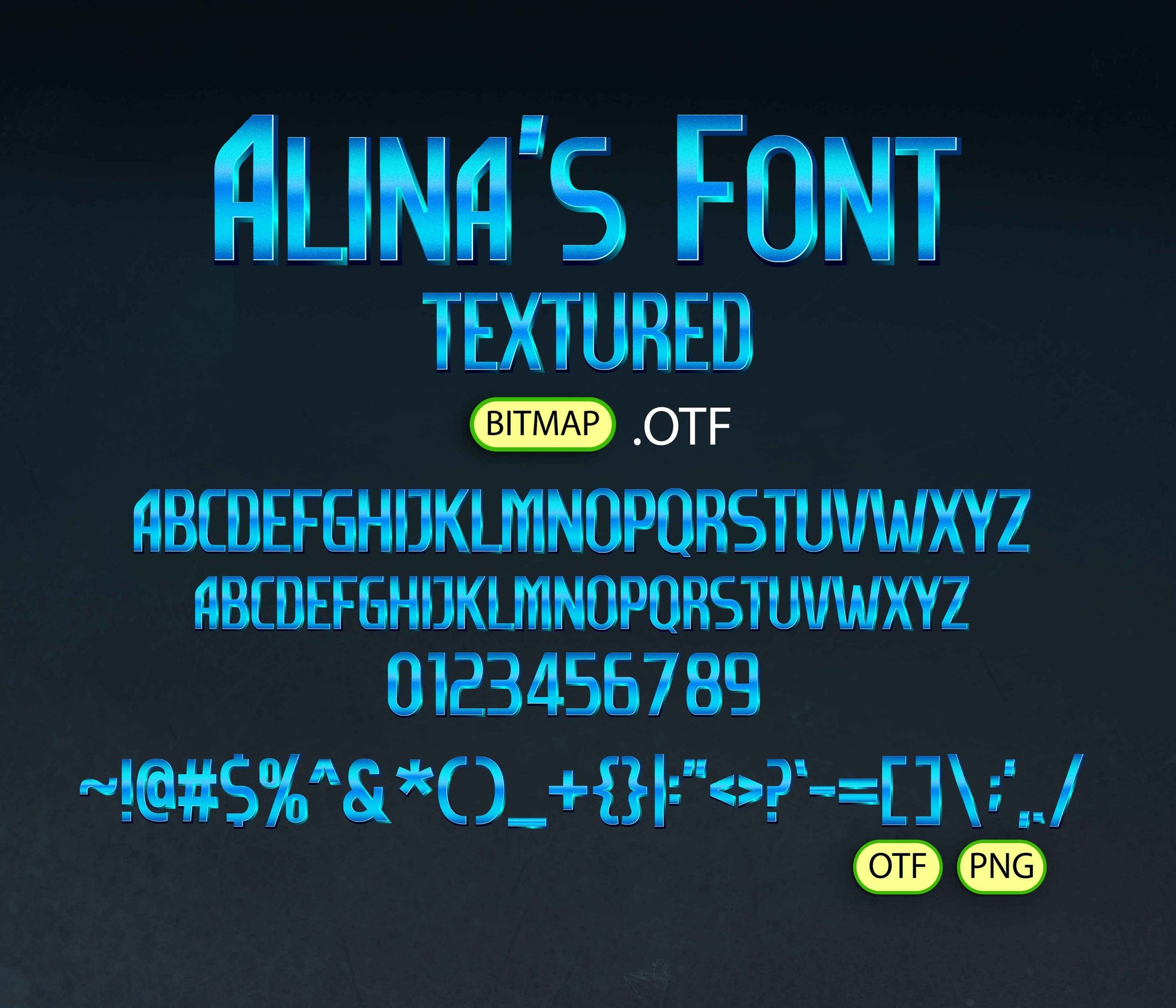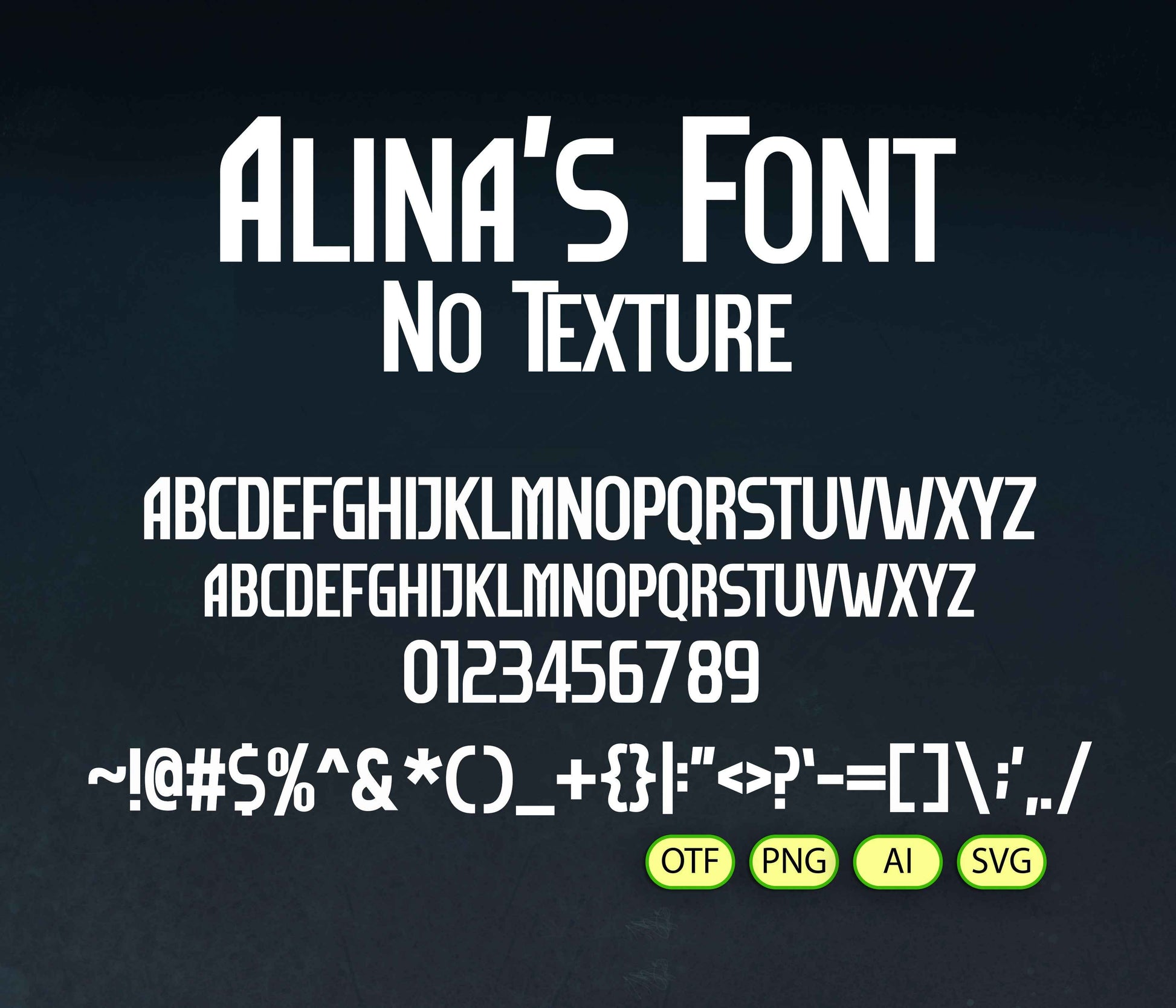
Quantum Hero Font Textured
Step into the adrenaline-filled universe of size-altering superhero exploits with our Quantum Realm Font: Quantum Hero Textured Font. Crafted to echo the unique vibrancy of action and wit found in engrossing narratives of a size-changing hero, this font empowers your creations to harness the very essence of microscopic adventures, bringing forth a visual spectacle rivaled only by the cinematic series itself.
What Font is Quantum Realm Font?
Fans and designers alike question - What's the inside scoop on the Quantum Hero font? The answer resides in the meticulously designed Quantum Realm Font. This isn't a simple imitation—instead, it captures the bold character style and hue intricacy present in a celebrated franchise. The font collection encompasses not only the alphabet but numerals and symbols too, providing a complete design arsenal that channels the distinctive atmosphere of a miniaturizing superhero universe.
As an added boon, you receive a bonus smooth, clean variant of the font, an excellent fit for Cricut machines and precise design tasks—perfect for crafters seeking to infuse their creations with the superhero's unforgettable charm. With the Quantum Realm Font: Quantum Hero Textured Font, experience the high stakes thrill of a superhero adventure in every letter and punctuation— adding an element of sci-fi magic to all your creative explorations.